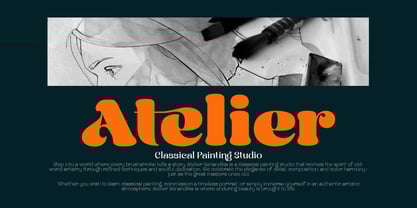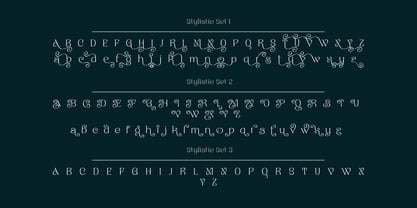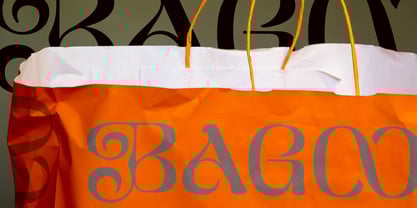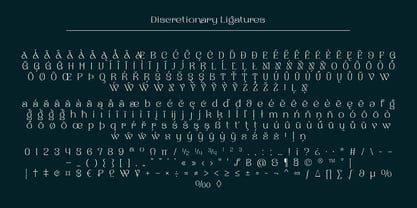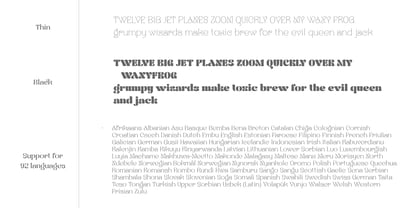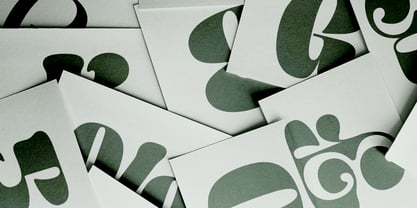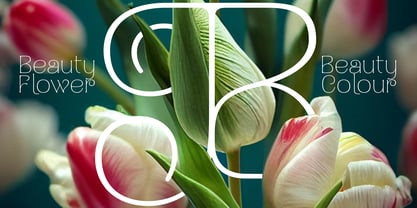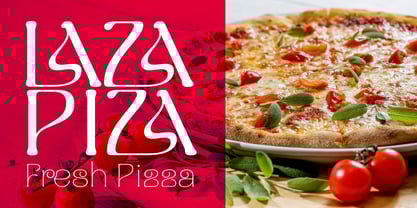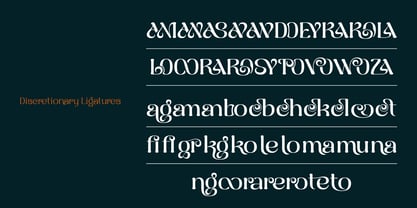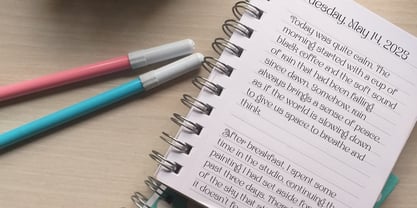
Naylira
NAYLIRA – MODERN BEAUTY SERIF FONT FOR ELEGANT BRANDING
Naylira is a modern beauty serif font crafted to bring timeless elegance and sophistication to your creative projects. Featuring graceful curves, high contrast strokes, and delicate details, Naylira is designed to elevate any design that calls for luxury, femininity, and refinement.
Naylira perfect for a wide range of uses, including beauty branding, fashion editorials, wedding invitations, social media graphics, and luxury product packaging. Whether you’re designing for a skincare line, a boutique fashion label, or a premium lifestyle brand, Naylira adds a refined touch that sets your work apart.